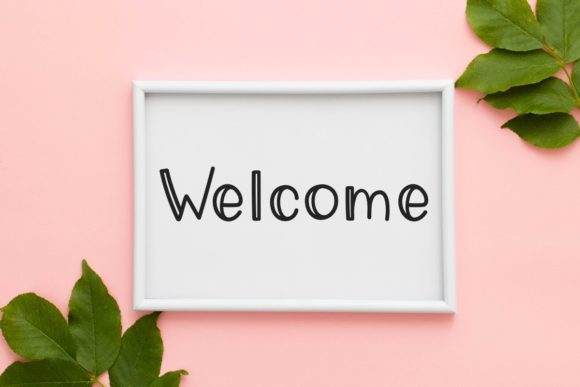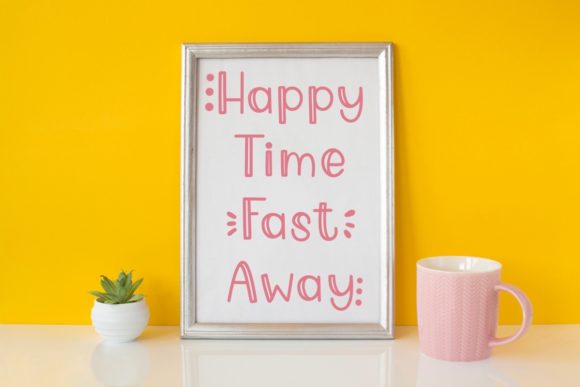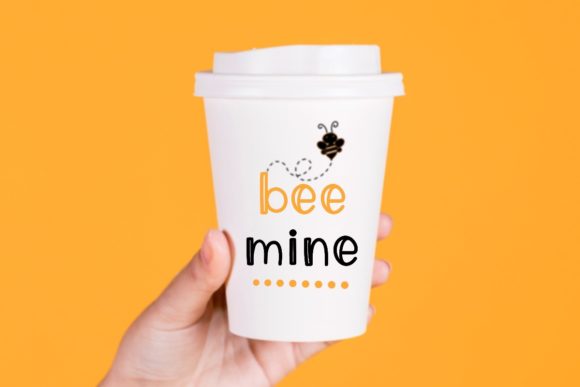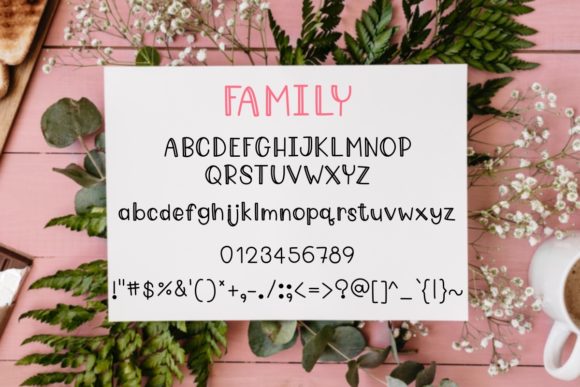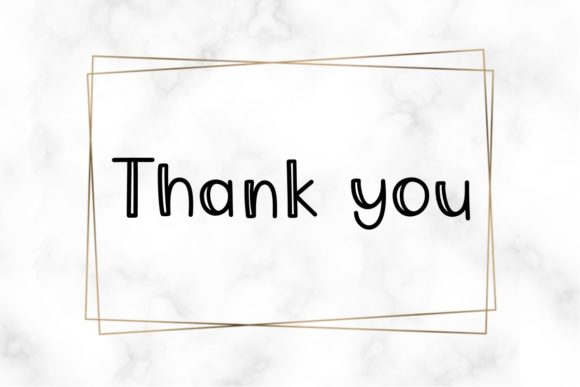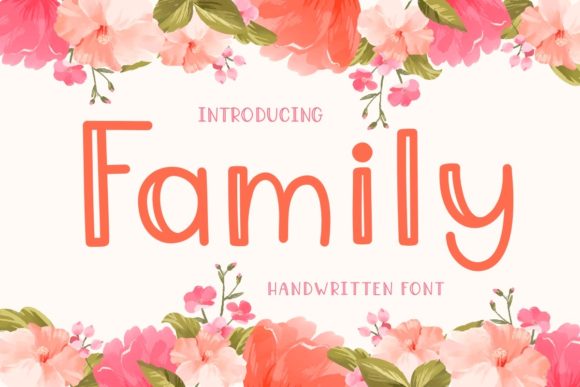
Introducing Family Font: The Perfect Handwritten Font for Your Creative Projects
Are you a designer, crafter, or DIY enthusiast looking for a font that can add a personal touch to your creative projects? Look no further than Family Font, a cute and casual handwritten font that’s perfect for a wide range of applications. In this article, we’ll take a closer look at Family Font, its features, and how you can use it to create stunning designs that capture the essence of warmth and friendliness.
What is Family Font?
Family Font is a beautifully designed handwritten font that features an incredibly cute style, while still keeping a friendly feel. It’s the perfect font for anyone who wants to add a personal touch to their designs, whether it’s for a wedding invitation, social media post, logo, or greeting card. With its unique and charming style, Family Font is sure to capture the hearts of your audience and make your designs stand out.
Key Features of Family Font
- Cute and Casual Style: Family Font features a cute and casual handwritten style that’s perfect for creating designs that are friendly, approachable, and inviting.
- Versatile: This font is incredibly versatile and can be used for a wide range of applications, including wedding invitations, stationary art, social media posts, logos, branding, greeting cards, and more.
- Easily Readable: Family Font is designed to be easily readable, making it perfect for body text, headings, and titles.
- Unique and Charming: With its unique and charming style, Family Font is sure to add a personal touch to your designs and make them stand out from the crowd.
Uses of Family Font
Family Font is an incredibly versatile font that can be used for a wide range of creative projects, including:
- Wedding Invitations: Create stunning wedding invitations that set the tone for a beautiful and memorable wedding day.
- Stationary Art: Design beautiful stationary art, including notecards, journals, and planners.
- Social Media Posts: Create eye-catching social media posts that capture the attention of your audience and make your brand stand out.
- Logos and Branding: Use Family Font to create unique and memorable logos and branding materials that reflect your brand’s personality.
- Greeting Cards: Design cute and personalized greeting cards for special occasions, including birthdays, holidays, and more.
Why Choose Family Font?
With so many fonts available, why choose Family Font? Here are just a few reasons why Family Font is a great choice for designers and crafters:
- Unique Style: Family Font features a unique and charming style that’s sure to make your designs stand out.
- Easily Customizable: This font is easily customizable, allowing you to adjust the size, color, and style to fit your design needs.
- High-Quality: Family Font is a high-quality font that’s designed to produce crisp and clear results, even at small sizes.
- Support for Multiple Languages: This font supports multiple languages, making it a great choice for designers who work with international clients.
Tips for Using Family Font
Here are a few tips for using Family Font in your designs:
- Pair with Other Fonts: Family Font pairs well with other fonts, including serif and sans-serif fonts. Experiment with different font combinations to find the perfect look for your design.
- Use for Headings and Titles: Family Font is perfect for headings and titles, where its unique style can really shine.
- Experiment with Colors: Family Font looks great in a variety of colors, from bright and bold to soft and pastel. Experiment with different colors to find the perfect look for your design.
| Font Name | Family Font |
| Author | Ality |
Family Font is a beautiful and versatile handwritten font that’s perfect for designers, crafters, and DIY enthusiasts. With its unique and charming style, easily readable design, and support for multiple languages, Family Font is a great choice for a wide range of creative projects. Whether you’re designing wedding invitations, social media posts, logos, or greeting cards, Family Font is sure to add a personal touch to your designs and make them stand out from the crowd.